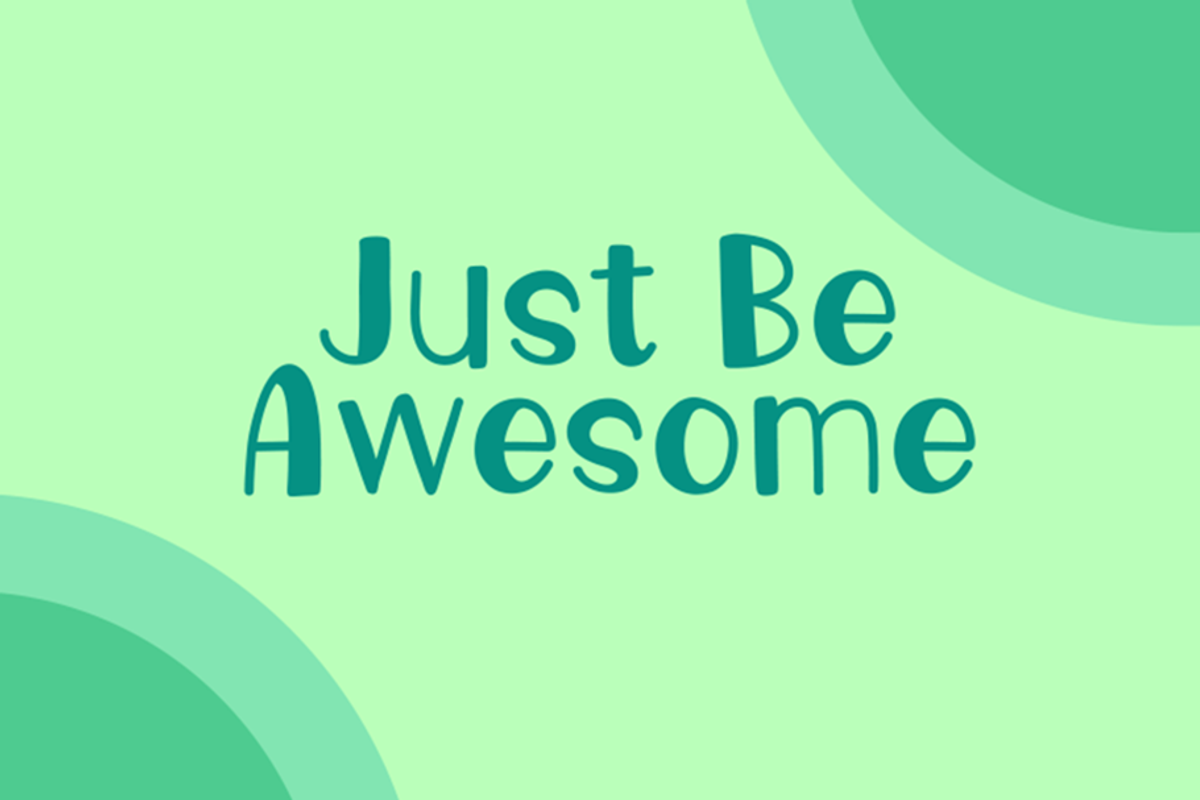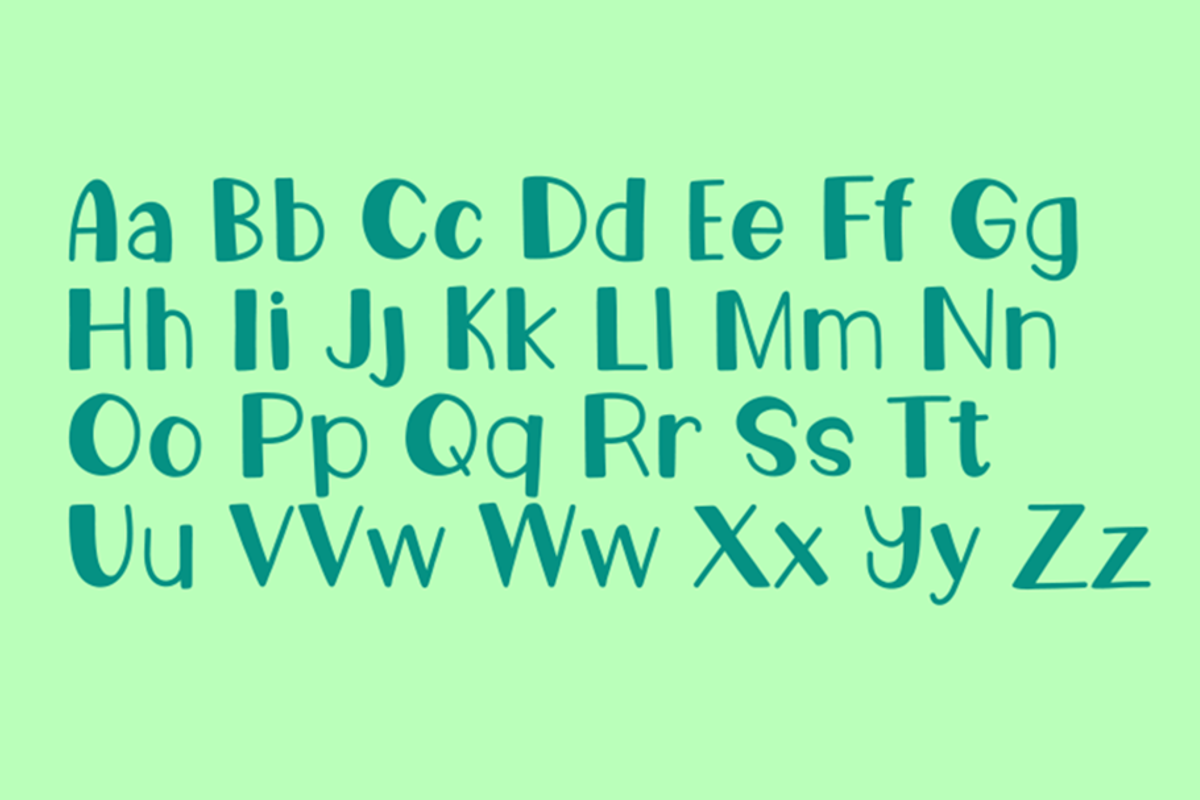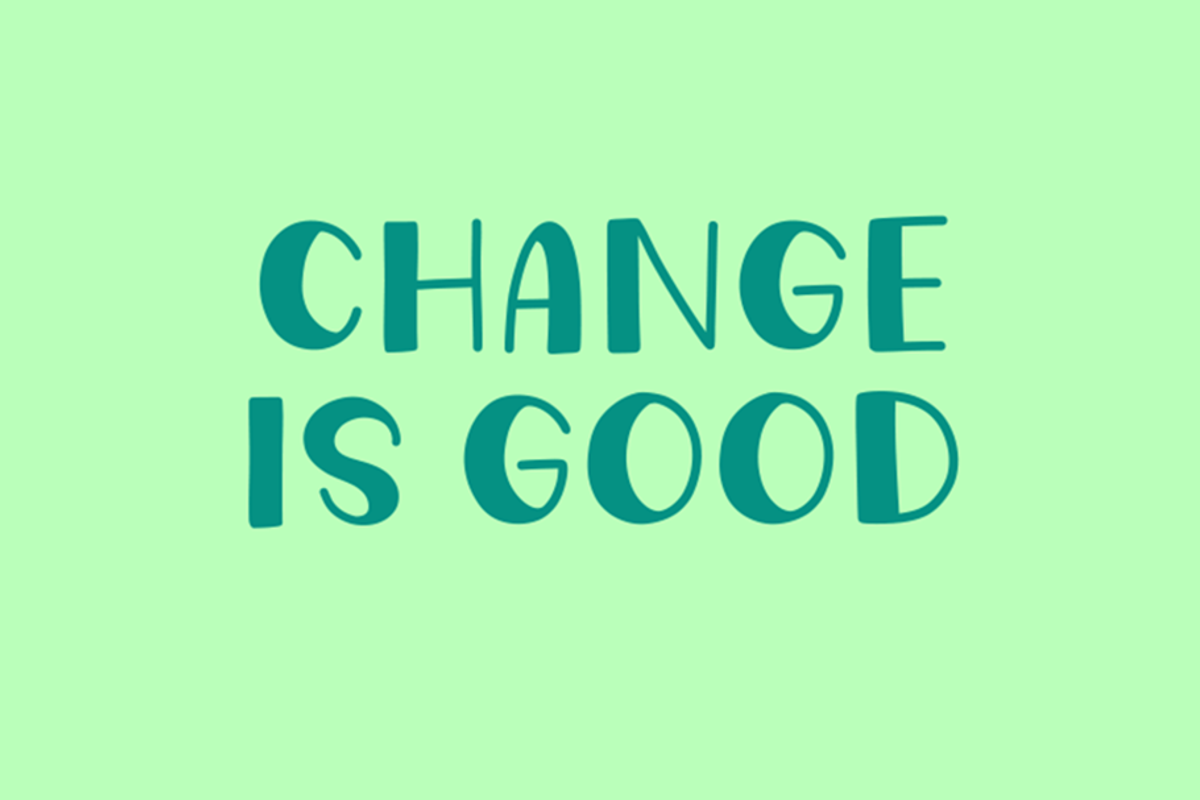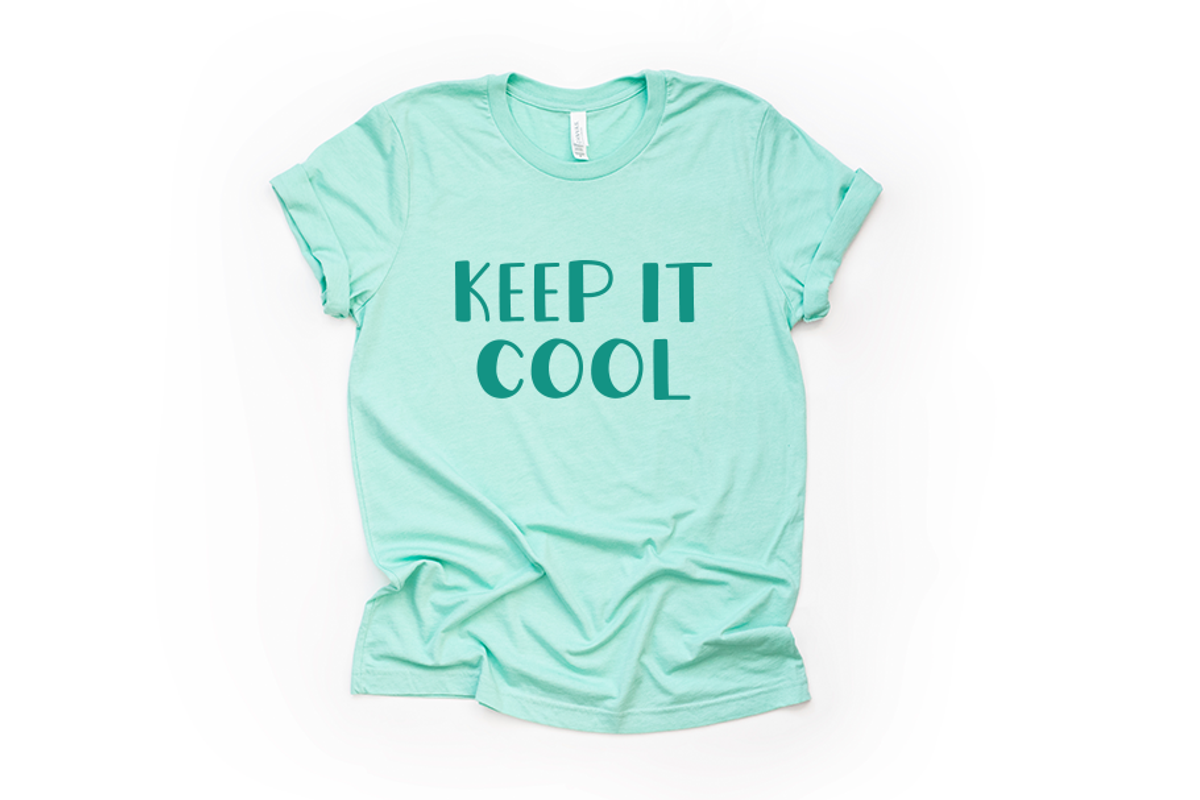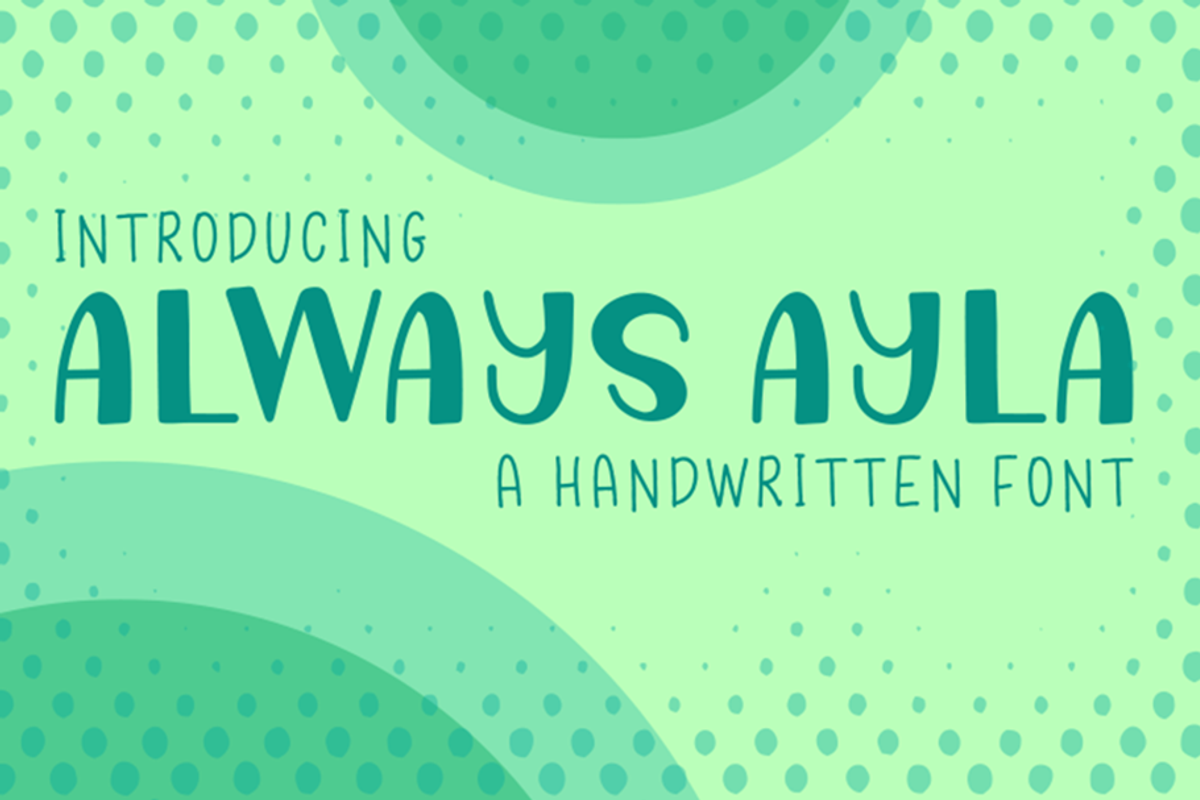
Always Ayla
Always Ayla is a handwritten font with a quirky feel. This font is perfect for SVG quotes, T-Shirt designs, websites, greeting cards, branding and much more. This purchase is available in TTF and OTF files. Most common characters are included. Please feel free to contact me if you would like to show what you have created with this font.